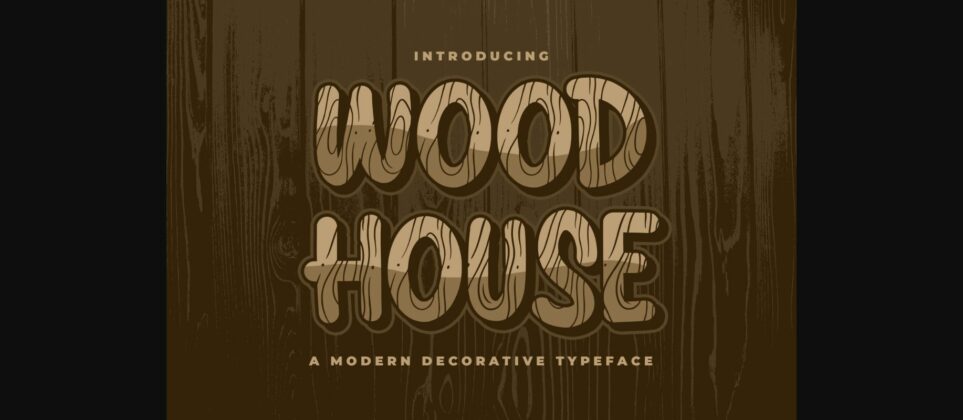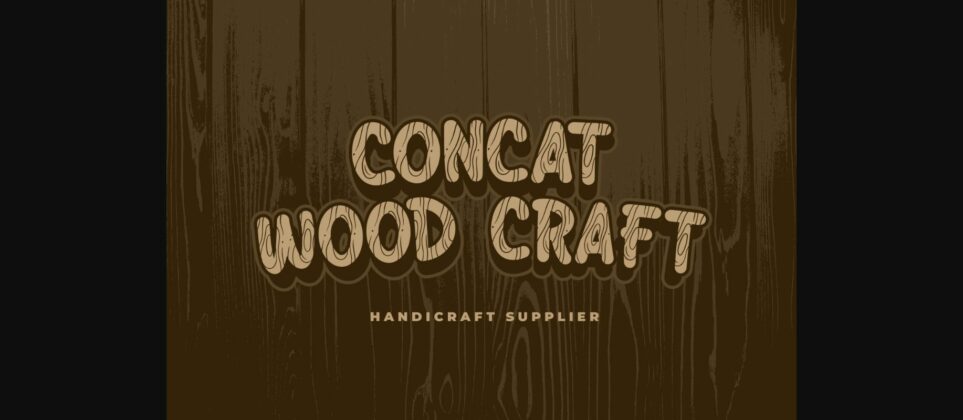
About Wood House Font
Wood House is a cool and uniquely designed decorative font. Whether you’re using it for crafting, digital designing, presentations or greeting cards making, it’s perfect!